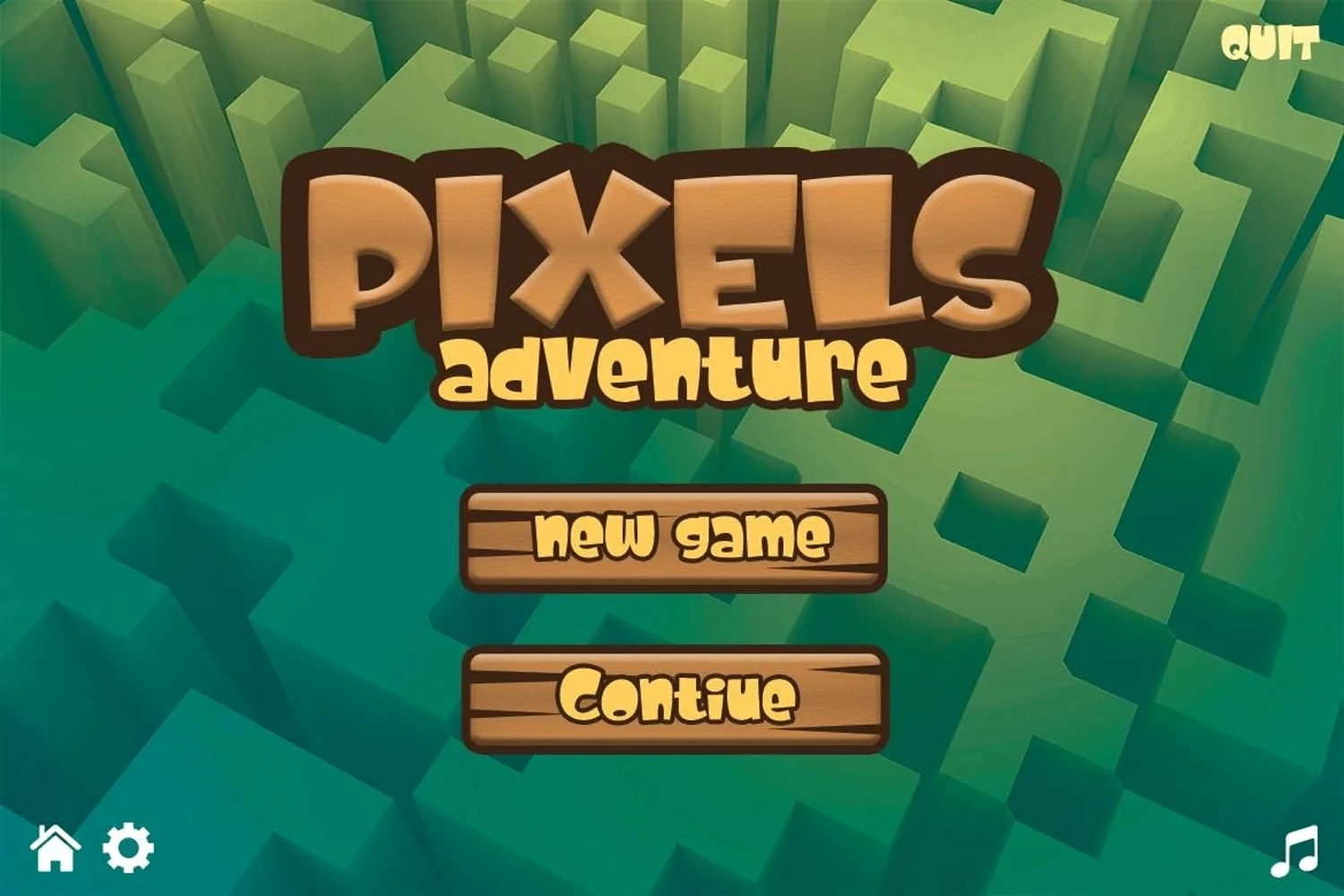
Cute Dolphin - Kids Font
Cute Dolphin kids font is a cartoon comic font, having a cute proportion that looks cute, brings a smile and happiness in every word being written.
Suit perfectly for Online Games, poster, movie title, fast food menu, magazine, youtube covers, youtube thumbnails, social media page covers and so on…